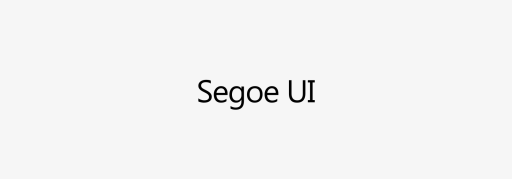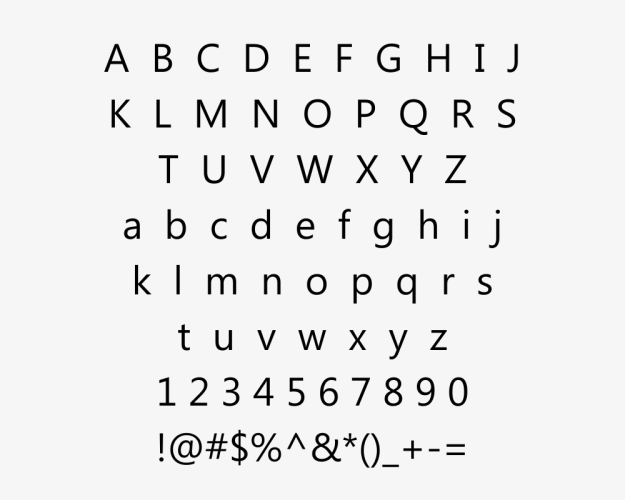
Segoe UI Font brings clean, modern design to your digital projects. This typeface works great for screens and digital interfaces. Designer Steve Matteson created it for…
Segoe UI Font brings clean, modern design to your digital projects. This typeface works great for screens and digital interfaces. Designer Steve Matteson created it for Microsoft in the early 2000s. Moreover, it became Windows Vista’s default font in 2007. The font offers 7 distinct styles and supports over 37 languages. Its open, neutral look makes text easy to read on any device. Furthermore, the humanist design adds warmth to corporate projects. You can use it for apps, websites, and user interfaces. The clear letterforms work well at small sizes. Additionally, its screen-optimized design ensures sharp text display.
This font is perfect for modern branding and logo design. Consequently, many companies choose it for professional materials. The typeface pairs well with other fonts. Moreover, it maintains readability in web design and mobile apps. You can create captions, labels, and subtitles with ease. In addition, it works great for print projects like business cards. The neutral style fits any brand identity. Therefore, designers love using it for corporate presentations. Its clean lines create a professional, trustworthy appearance. As a result, your designs will look polished and contemporary.
Segoe UI Font stays legible at small sizes, which makes it a strong choice for navigation, buttons and dashboards in web design and app interfaces.
Clean sans serifs like Segoe UI Font are the default language of SaaS, fintech and product branding.
What is Segoe UI Font good for?
Segoe UI Font is a Sans Serif Fonts typeface tagged Branding, Clean, Humanist, Modern. It works well for headlines, logos, posters, social media graphics and branding projects that need a distinctive sans serif fonts look.